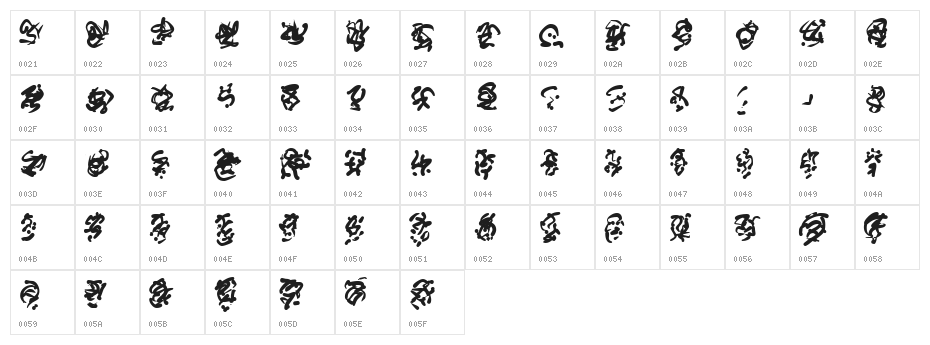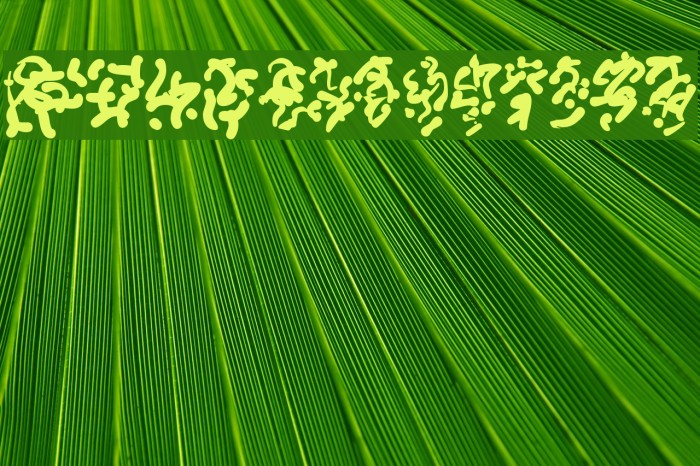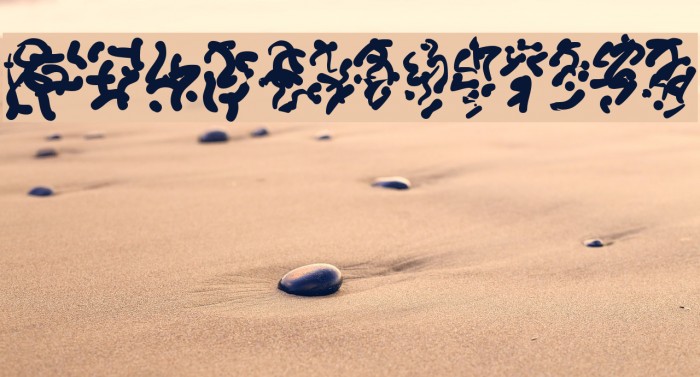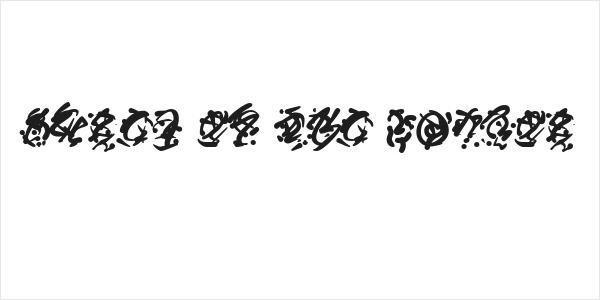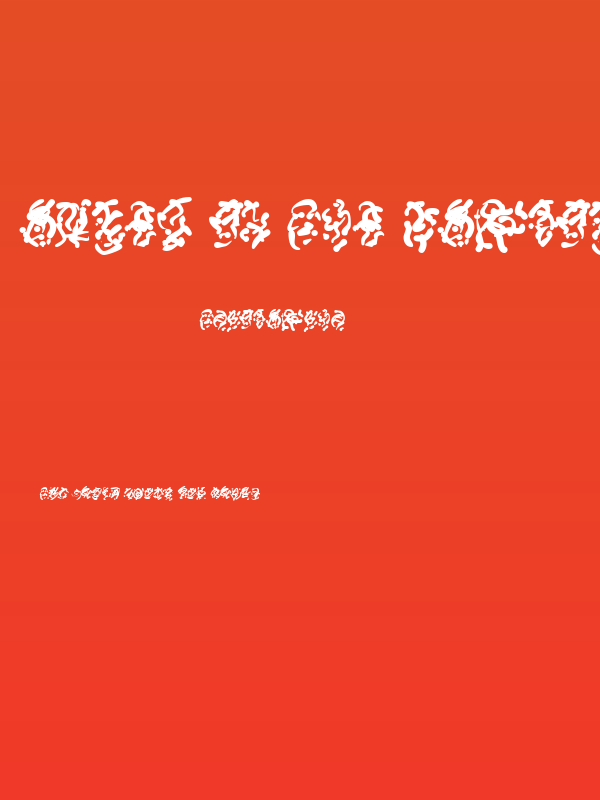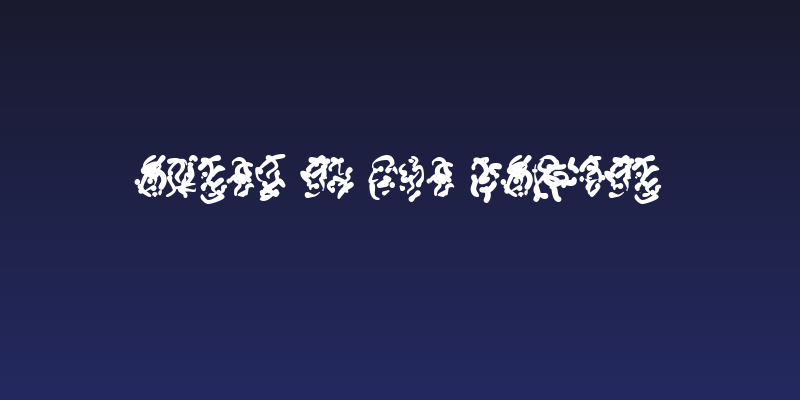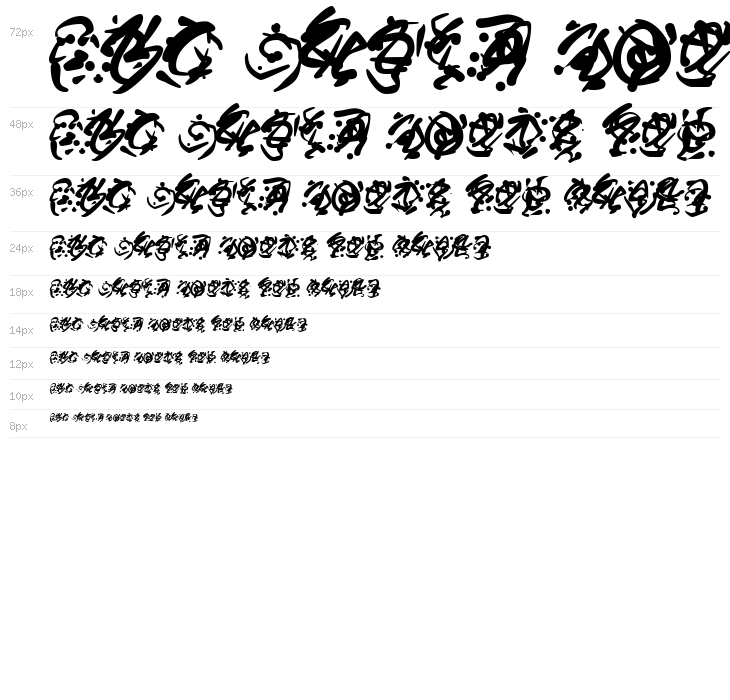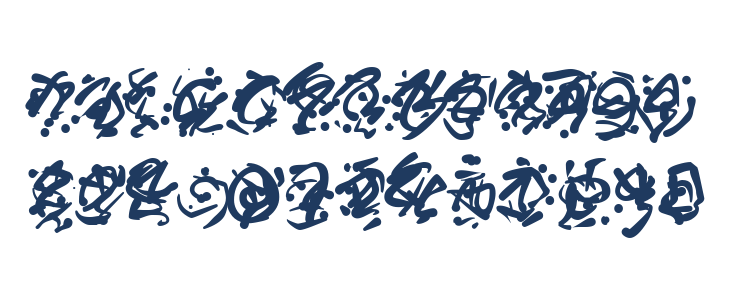
Runes of the Dragon Font
Runes of the Dragon Description
This font is an intricate and decorative style that resembles ancient runes or mystical symbols. Each character is highly stylized, featuring complex curves and loops that intertwine, giving it an enigmatic and magical appearance. The design is bold and dense, with each letterform appearing as a unique piece of art. The characters are closely packed, creating a sense of mystery and depth. This font is not easily readable at a glance and is more suited for decorative purposes rather than practical text applications. Its unique style evokes a sense of fantasy and otherworldliness, making it ideal for projects that aim to capture an ancient or mystical theme.
| Overall Style | Mystical, Fantasy, Decorative |
| Use Case | Logos, Decorative titles, Thematic posters |
| Proposed Projects | Fantasy book covers, game titles, mystical event invitations, decorative posters. |